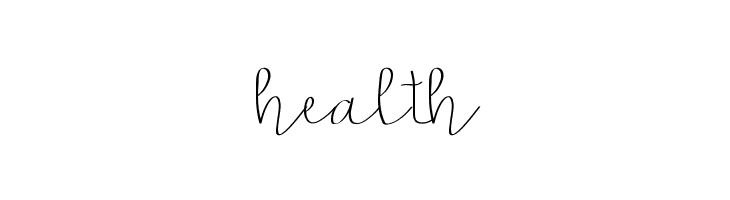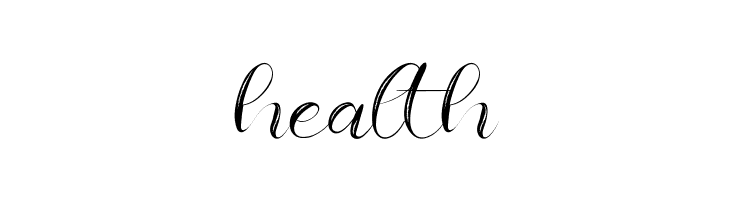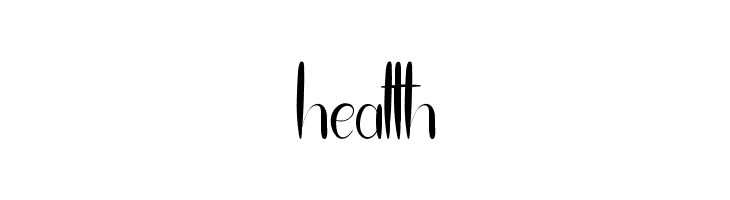
A whimsical, decorative font with intricate curls and loops, perfect for fairy-tale themes.
A flowing, cursive script font with elegant, connected strokes.
A stylish, handwritten font with elongated, flowing characters and artistic flair.
An elegant, flowing script font with graceful curves and a sophisticated flair.
An elegant script font with flowing, cursive style and intricate swashes.
A playful, handwritten font with flowing, cursive-like strokes.
A modern, high-contrast font with elegant, elongated letterforms and decorative flourishes.
A tall, narrow font with a sleek, modern design and thin, evenly spaced characters.
A dynamic handwritten font with fluid, expressive strokes and playful curves.
A delicate and elegant script font with flowing, interconnected letters.